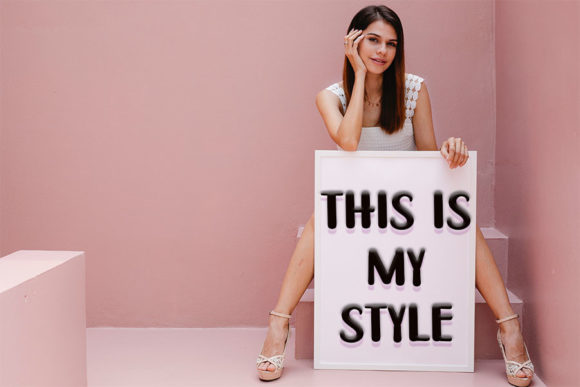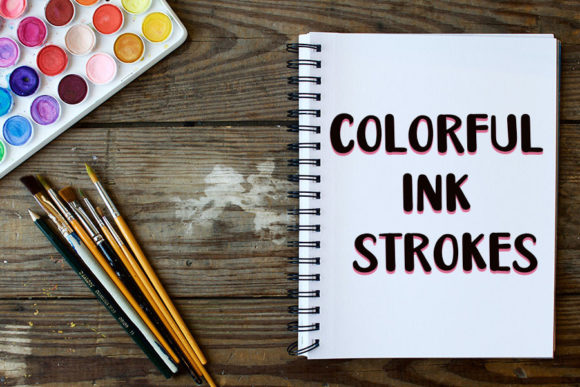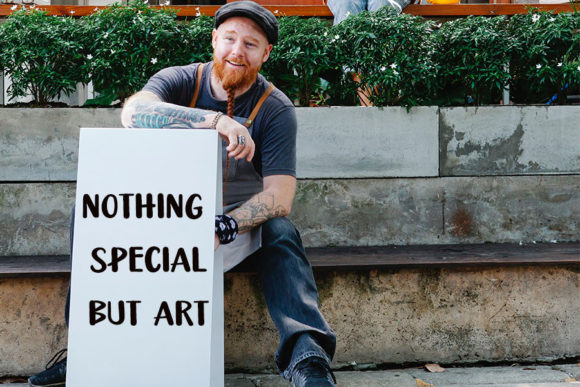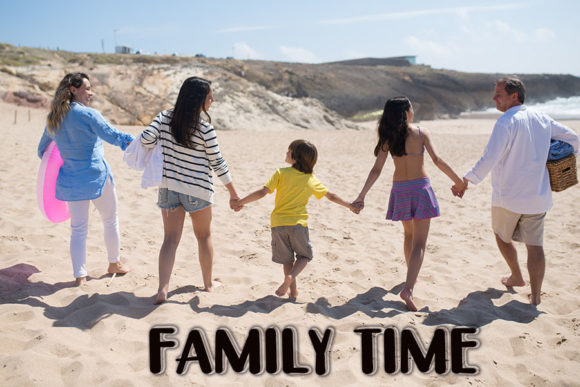
Eagle Font
About Eagle Font
Eagle is a trendy and chic lettered handwritten font. Whether you’re using it for crafting, digital designing, presentations or greeting cards making, it’s perfect!